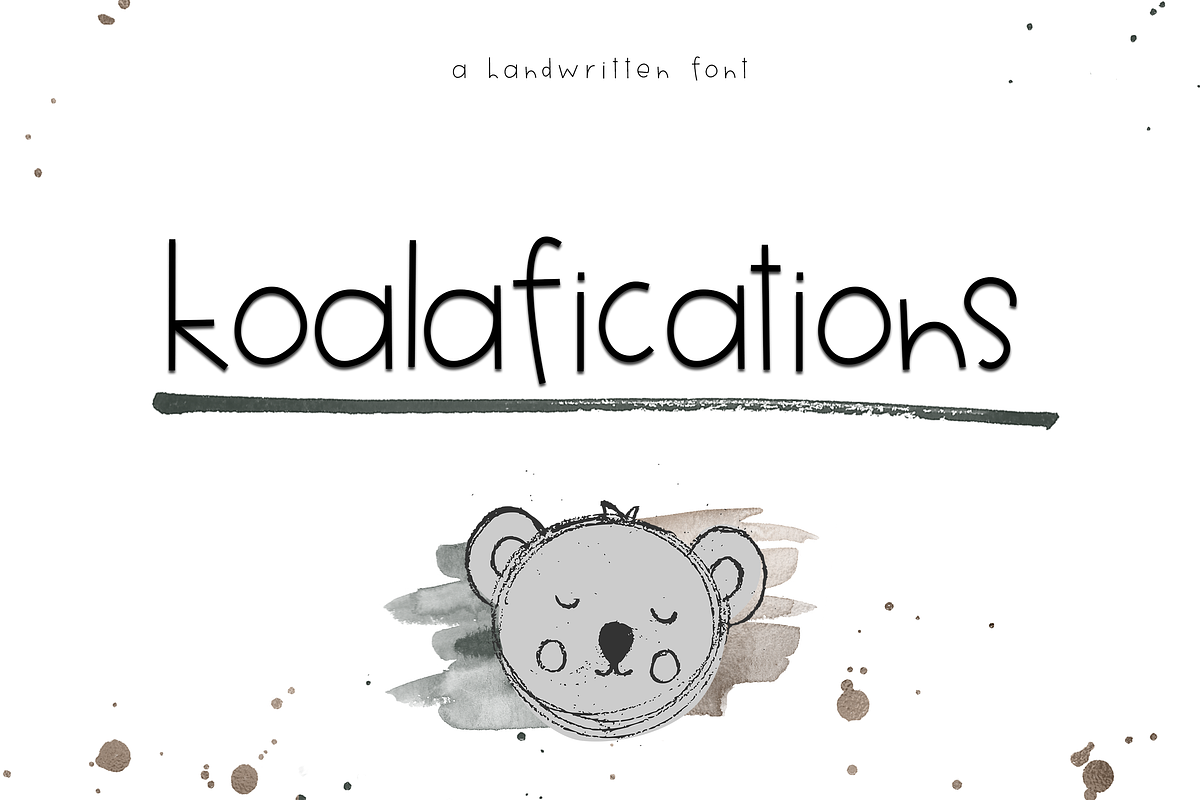
Koalafications - Handwritten Font Free Download
Please note, you must purchase this font for commercial use. However, you can easily download Koalafications - Handwritten Font Free Download for personal use and testing purposes. Koalafications - Handwritten Font is a fun and quirky handwritten typeface designed to add a playful, personal touch to your designs. Perfect for creating invitations, logos, greeting cards, social media posts, and more, this font brings a creative and casual feel. Its unique, expressive style makes it ideal for projects that need a relaxed, informal vibe. Whether you're working on a fun branding project or designing a personal greeting, Koalafications - Handwritten Font Free Download will bring charm and character to your typography. Download Koalafications - Handwritten Font Free Download today and explore its potential before opting for a commercial license.